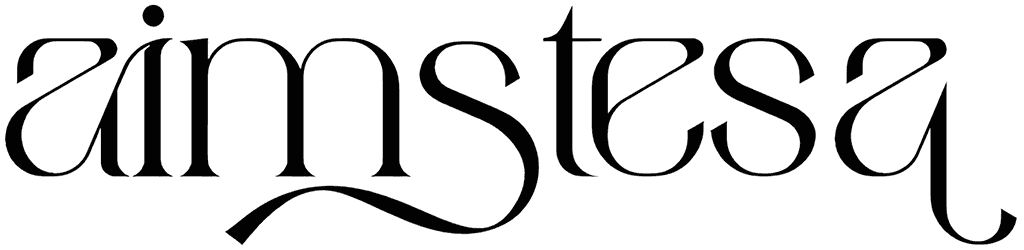
Aimstesa Font
Aimstesa is a classic serif font with clean and simple lines that exude timeless elegance. Its balanced proportions and clear letterforms make it easy to read and pleasing to the eye, making it an ideal choice for a wide range of design projects, from traditional print materials like books and newspapers to modern digital interfaces.